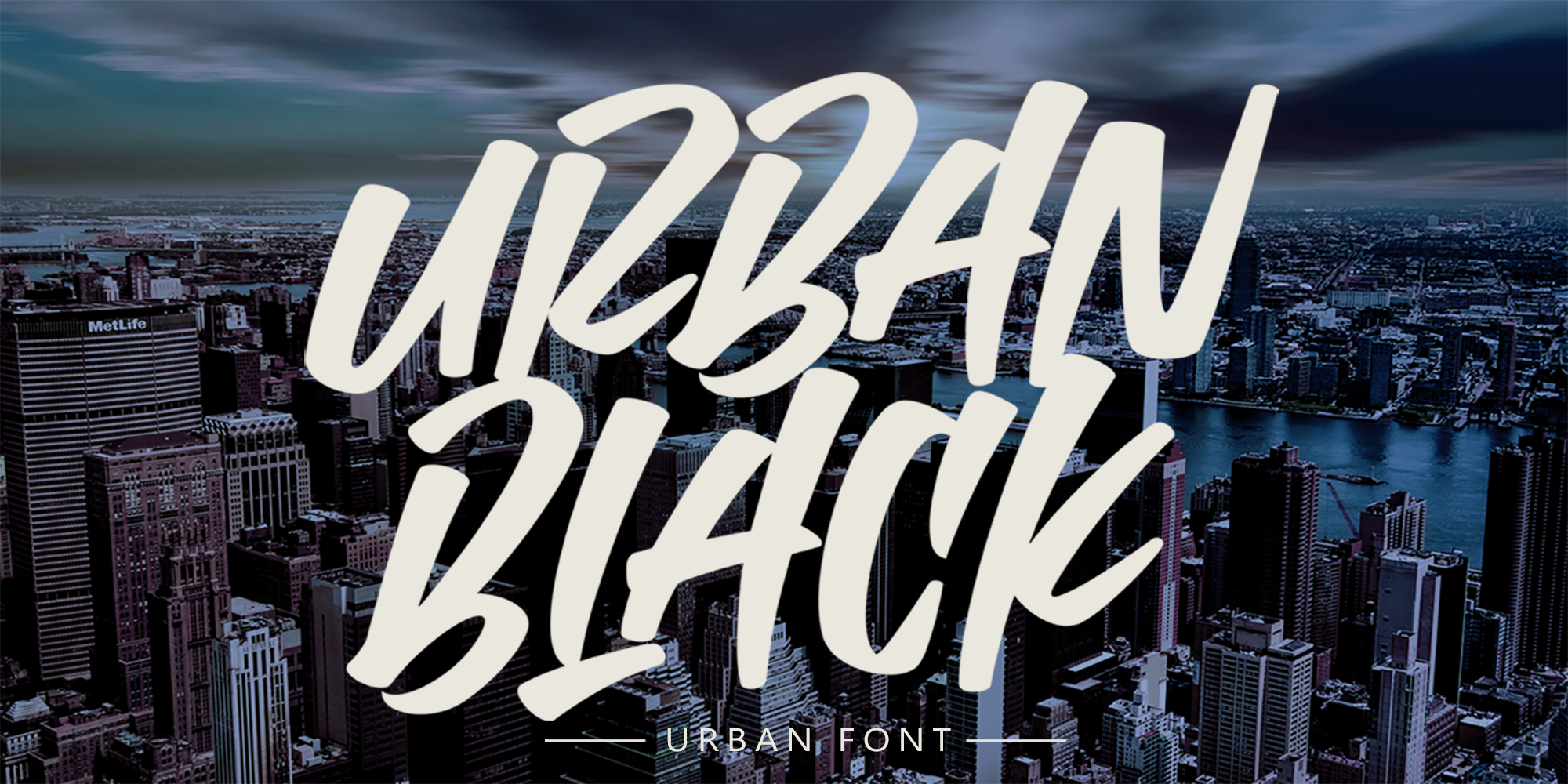
Urban Black Font is a commanding and intensely powerful typeface, perfectly suited for projects that demand a bold, metropolitan, and unmistakably modern aesthetic. Imagine it dominating the headlines of a cutting-edge streetwear brand's campaign, adding a gritty yet polished edge to music album covers, or making an unmissable statement on posters for urban cultural events and festivals. It's also an excellent choice for crafting striking logos that convey strength and attitude, designing impactful social media graphics for contemporary brands, or bringing a dynamic, energetic vibe to video game titles and digital advertisements. If you're looking to convey strength, sophistication, and an undeniable sense of raw urban power, Urban Black Font is an outstanding selection.
What makes Urban Black Font so exciting? It’s its unparalleled ability to combine a robust, solid construction with distinctive, often angular or clean modern forms, creating an immediate visual impact. This font is designed to command attention, with its extremely thick strokes and unyielding presence making it ideal for display purposes where maximum visibility and a strong identity are paramount. Despite its powerful visual weight, Urban Black Font is crafted to maintain excellent readability, ensuring that your message is delivered with both clarity and significant force. Designers will appreciate its versatility in creating designs that are both visually assertive and deeply memorable, making it a go-to choice for projects that need to resonate with an edgy, contemporary audience.
The Urban Black Font family is typically designed to maximize its formidable and distinctive aesthetic. While it might primarily feature a singular, intensely bold "Black" weight that perfectly embodies its unique style, you could find variations that enhance its utility, such as slightly condensed versions for powerful headlines in limited spaces, or stylistic alternatives that offer more creative typographic possibilities to deepen its urban appeal. These variations ensure that Urban Black Font maintains its cohesive and high-impact visual identity across different design applications, from monumental titles to supporting text that still carries significant weight. Discover the formidable power of Urban Black Font Free Download and infuse your designs with an unforgettable sense of metropolitan strength.